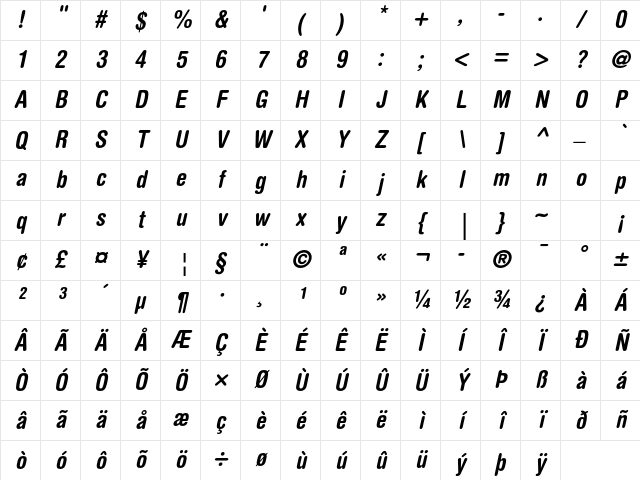
Helvetica Rounded LT Std Bold Condensed Oblique
Style: Bold Condensed Oblique
Designer: Unknown
Complete Helvetica Rounded LT Std Bold Condensed Oblique glyph index. Displaying only characters natively supported by Helvetica Rounded LT Std Bold Condensed Oblique font.
Design Context for Helvetica Rounded LT Std
Helvetica Rounded LT Std softens its letterforms with rounded terminals, giving it an approachable, friendly quality that works well in consumer-facing and digital contexts. The slanted form adds forward momentum and visual energy. Its bold stroke weight gives it real presence on the page.
Font Pairing: Pairs well with a rounded or humanist sans for body copy, maintaining the friendly tone without relying on Helvetica Rounded LT Std to carry extended reading.
Pro Tip: Use Helvetica Rounded LT Std for UI elements, app interfaces, and anywhere a friendly, approachable tone needs to be maintained without sacrificing clarity.